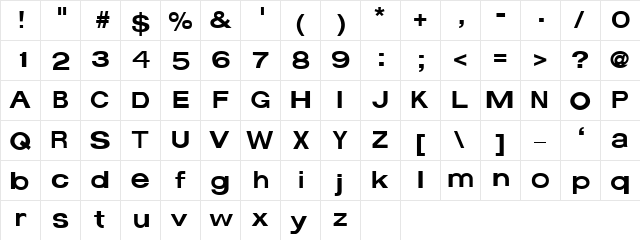
CheapSignage Standard
Design Context for CheapSignage Typeface
CheapSignage takes a measured approach to typography — its balanced proportions and neutral character make it a reliable workhorse for both digital and print work.
Pro Tip: Use CheapSignage in both headline and body roles to test its range before committing to a single application.